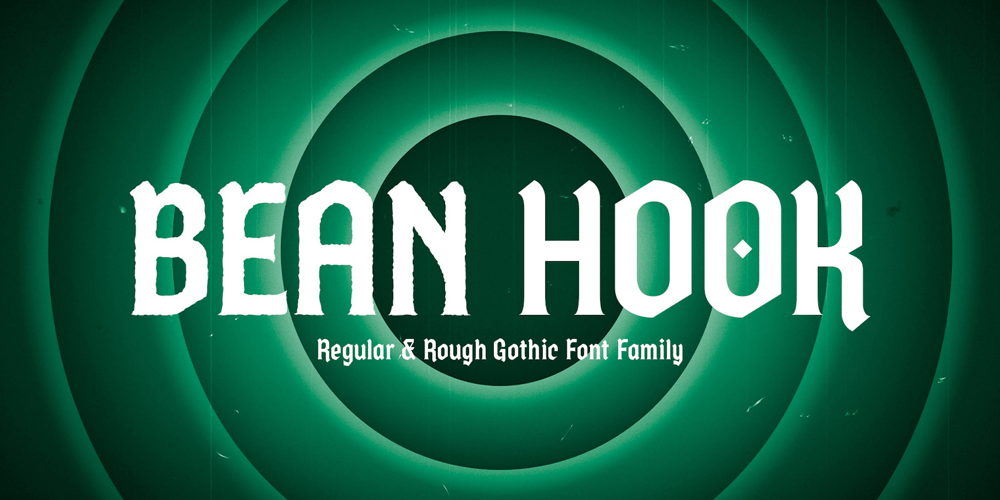
Bean Hook Font Family was designed by Wantara Putra and published by Casloop Studio. Bean Hook contains 4 styles and family package options. Introducing Bean Hooka Gothic Flare font that seamlessly blends the almost mystical essence of black letter with the dynamic charm of flare serif. This unique display font stands out with its characteristic angularity, offering a contemporary twist to traditional Gothic styles.Characteristic of Bean Hook is its versatile application across various design projects, from websites and packaging to logos and branding. Elevate your music endeavors with captivating album covers and distinctive logotypes. Embrace the font’s ethnic and experimental Gothic mood for fashion, posters, and 3D projects.Bean Hook boasts superior features, making it an excellent choice for your creative ventures. Its woodtype and antique-inspired design add an authentic touch to your Easter-themed projects, featuring elements like bunnies, chicks, crosses, and festive symbols. Whether you’re working on a church event or an Easter celebration, Bean Hook’s diverse variants – regular, rough, inline, and rough inline – offer endless possibilities.Capture attention with the font’s unique combination of St. Patrick’s Day elements, including Shamrocks and Leprechauns. The font’s versatility extends to festivals, making it an ideal choice for Easter-themed designs. Immerse yourself in the experimental Gothic vibe, perfect for creating an atmosphere that is both mysterious and contemporary.Supported Languages: Bosnian, Catalan, Czech, Danish, German, English, Spanish, Estonian, Finnish, French, Brice, Irish, Croatian, Hungarian, Icelandic, Italian, Riso, Lithuanian, Latvian, Maltese, Dutch, Norwegian, Polish, Portuguese, Romanian, Print, Slovak, Slovenian, Albanian, Swedish, Turkish.Features : Uppercase & lowercase, Numbers, punctuation, Ligatures and Alternates, Multilingual and PUA Encode.